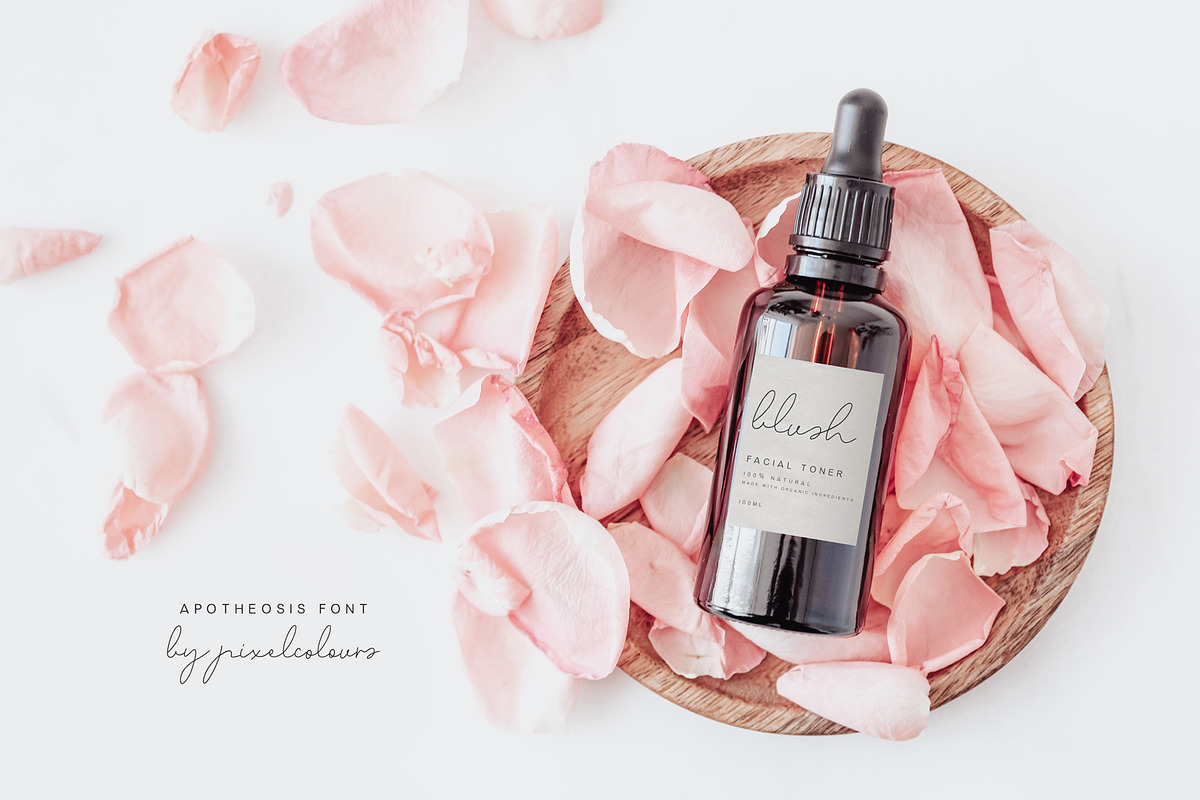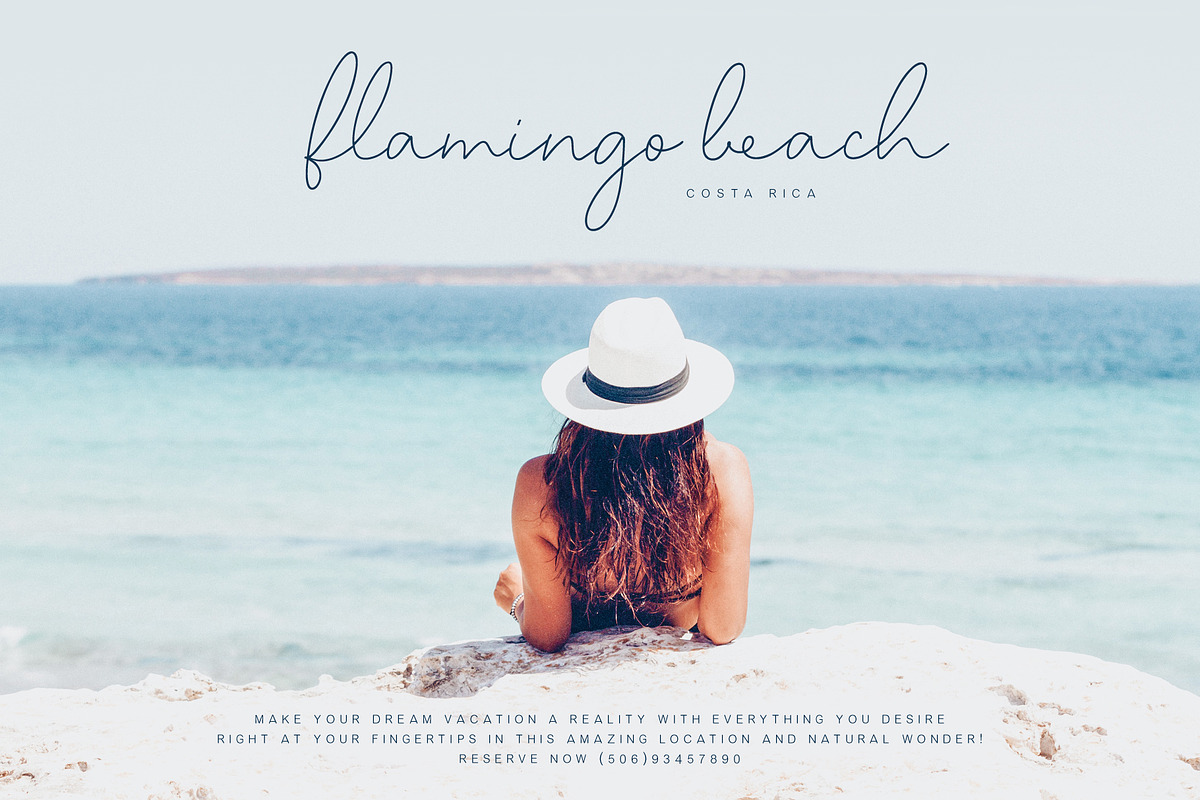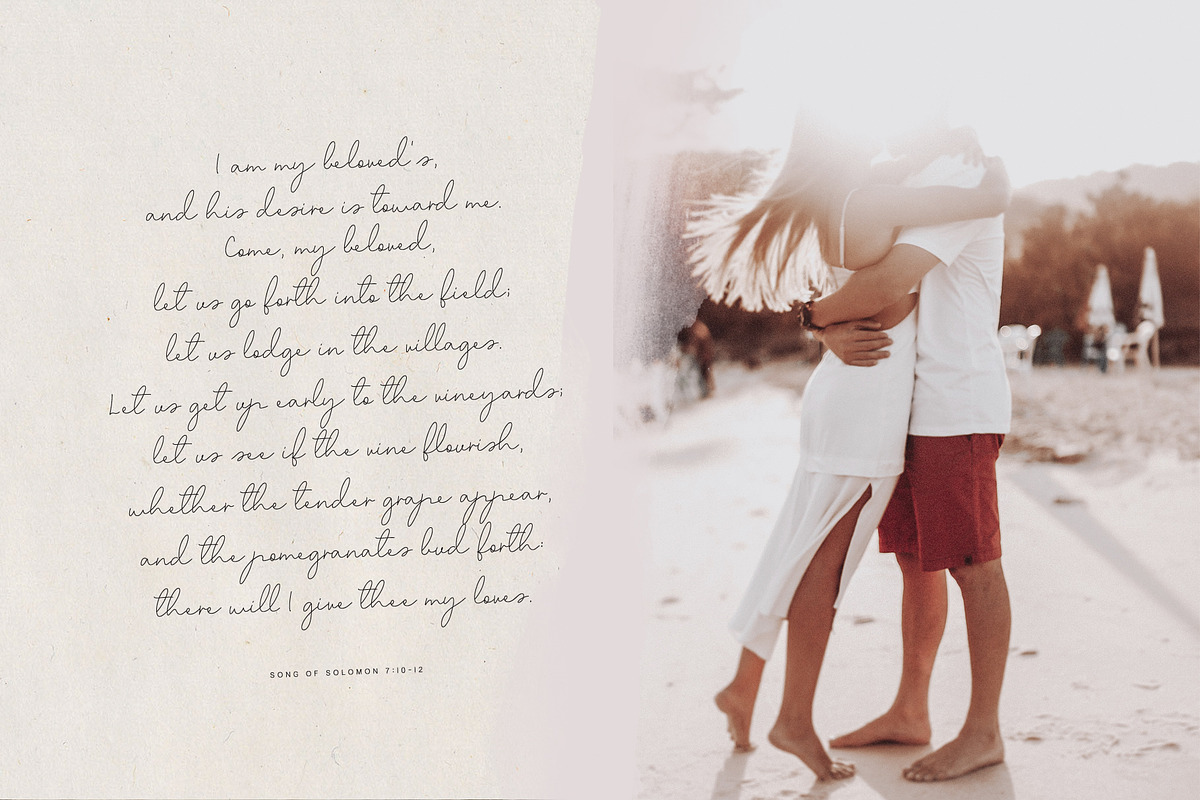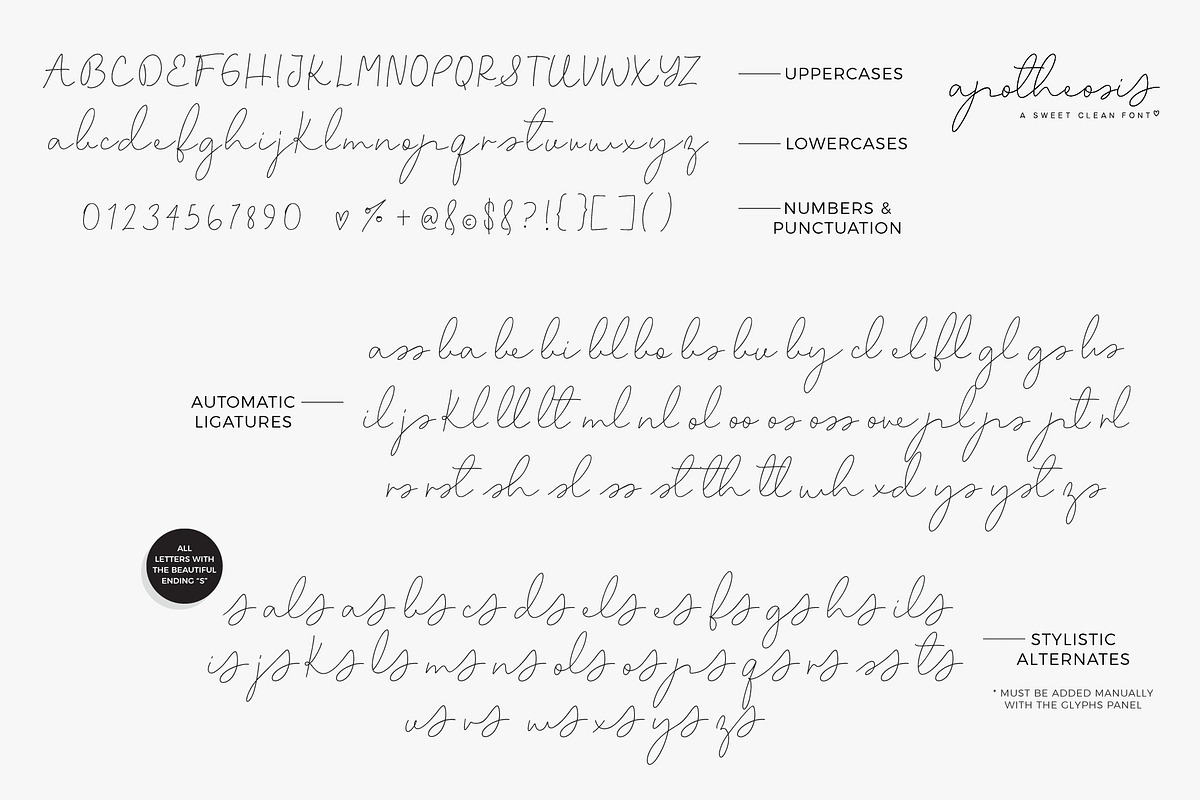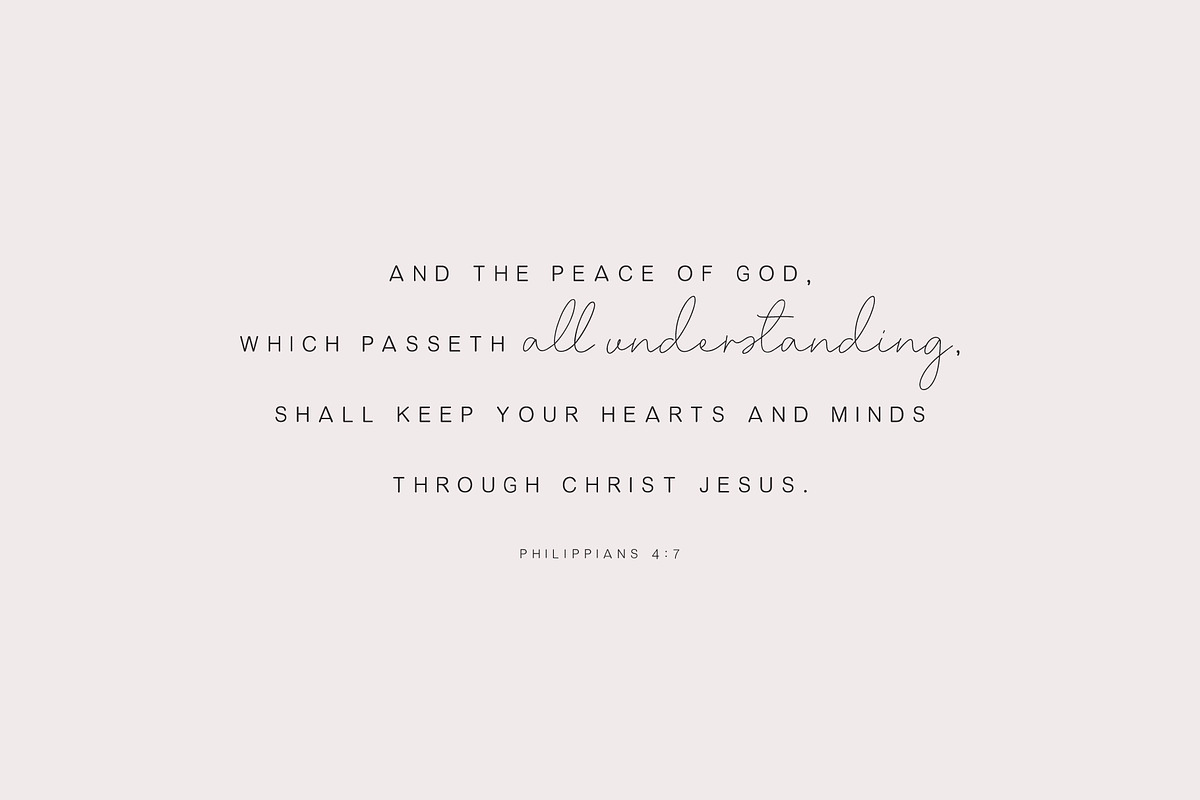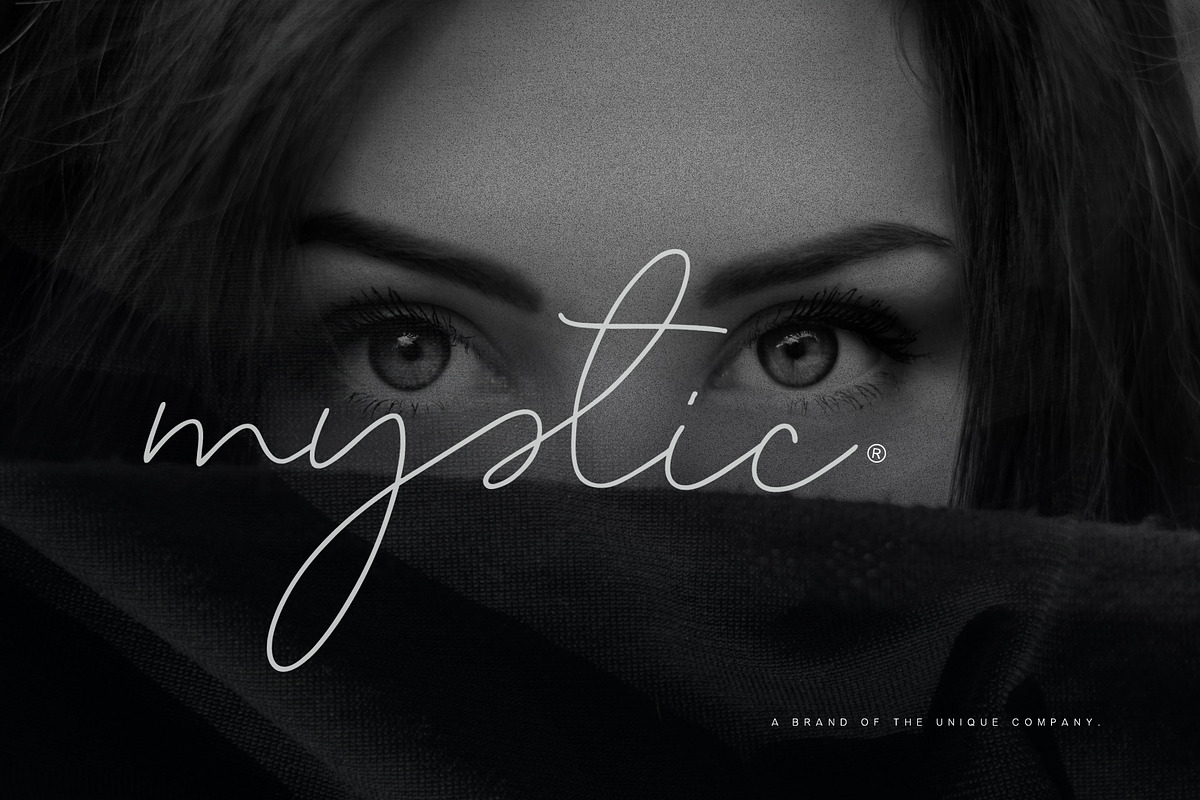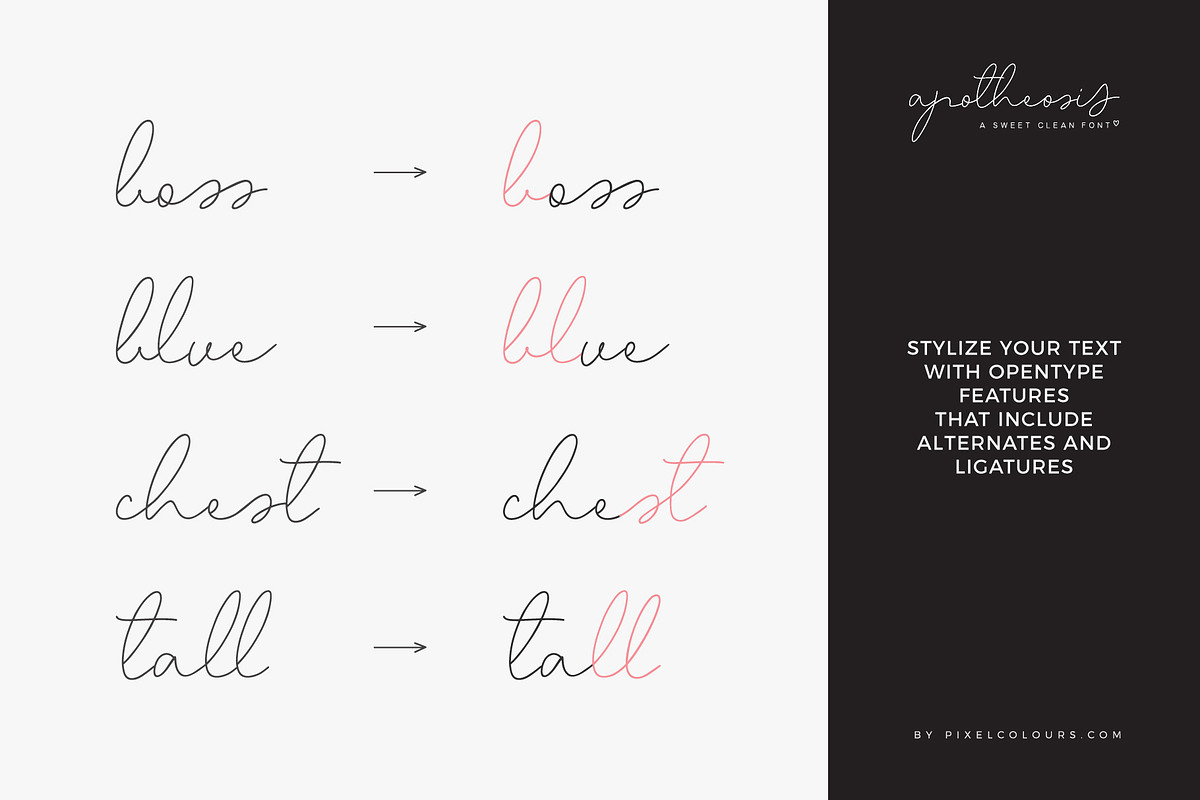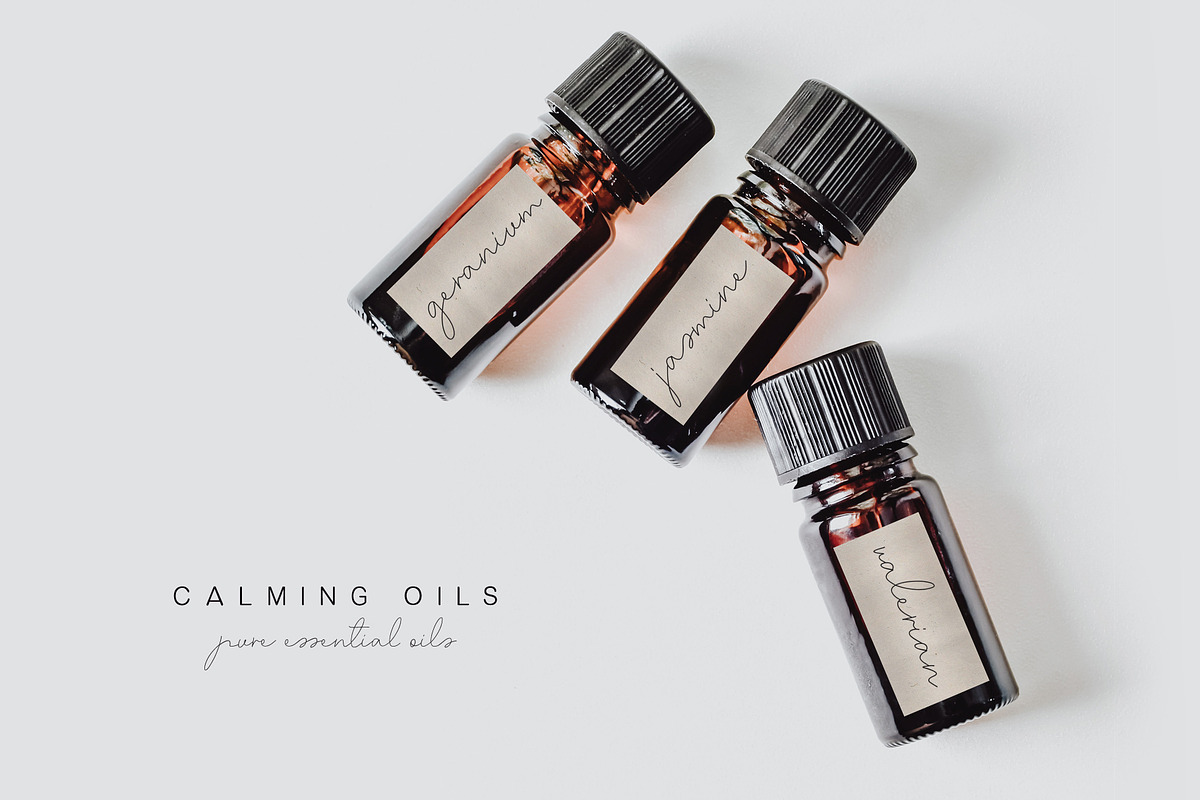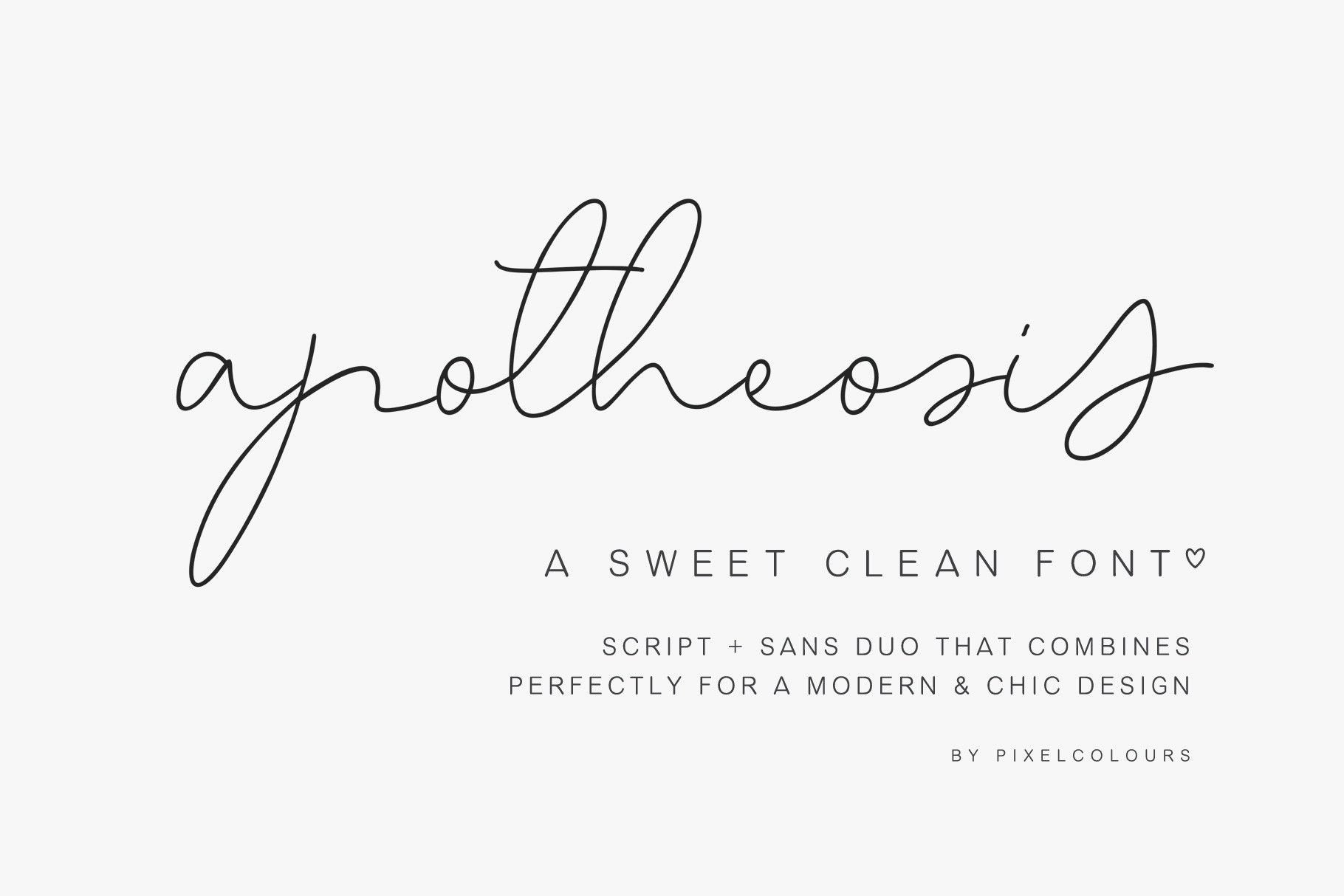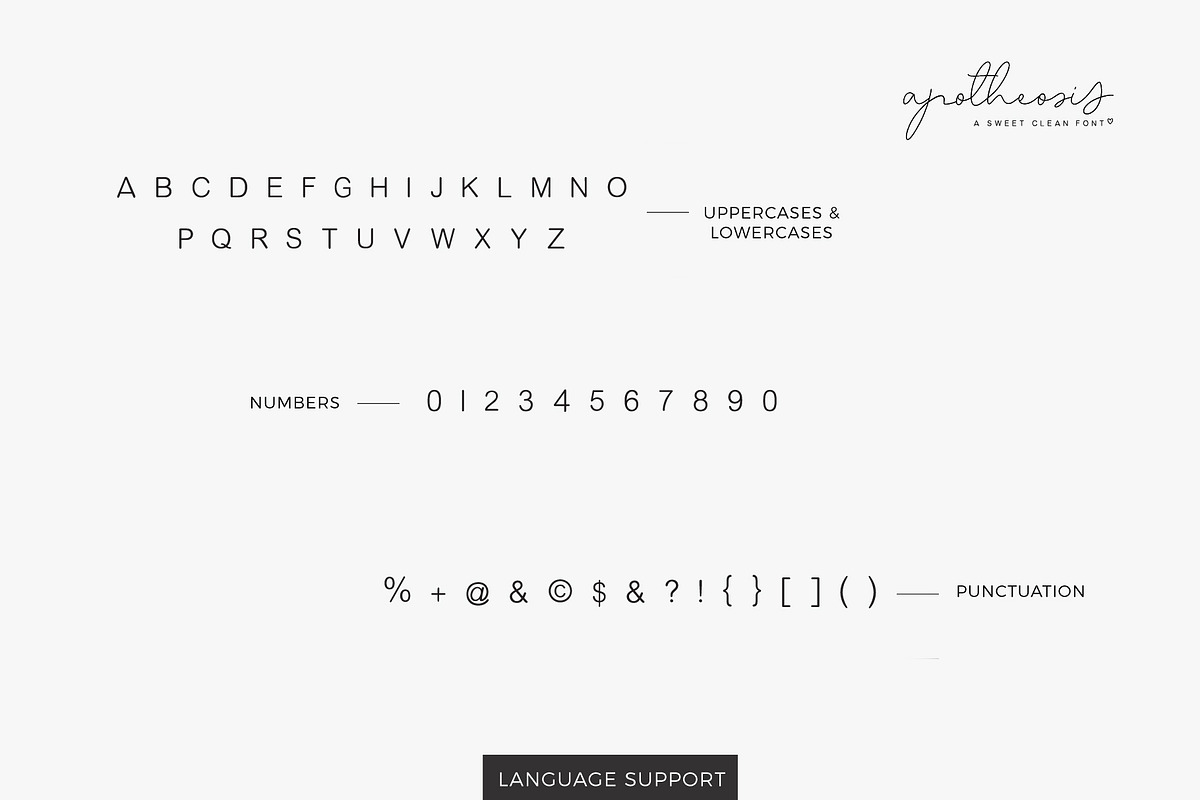
Script Font Apotheosis
Apotheosis is a chic, clean handwritten font with modern flows. Includes automatic ligatures, stylistic alternates and a beautiful big ending "s" that gives statement to the words. It also includes as a bonus a small uppercase sans to make the perfect combination. A beautiful font great for branding, labeling, packaging, etc.
Opentype Features This font contains opentype features and must be used in a program that supports opentype like Adobe to access the alternates in the Glyphs panel.
- Apotheosis: A clean modern script font.
- Apotheosis sans: A modern uppercase sans serif perfect for pairing and for descriptions, taglines, etc.